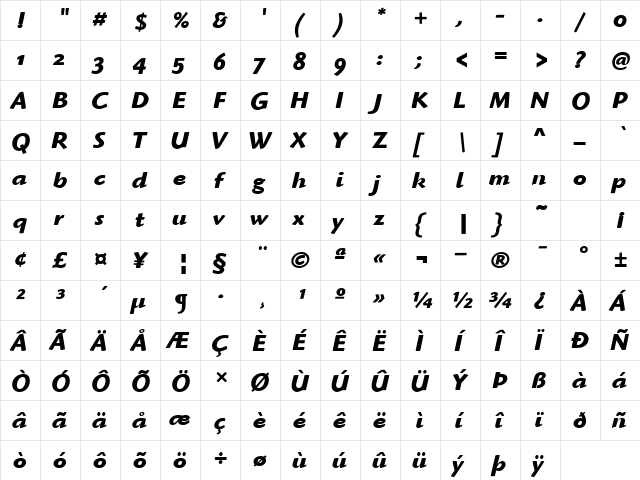
HighlanderITCOS BoldItalic Font Preview
HighlanderITCOS BoldItalic
HighlanderITCOS BoldItalic Font Details
Design Context for HighlanderITCOS Typeface
HighlanderITCOS is a composed and adaptable typeface that performs quietly and consistently across a wide range of design contexts. The slanted form adds forward momentum and visual energy. The heavy weight commands attention and anchors typographic hierarchies.
Pro Tip: Use HighlanderITCOS for emphasis, pull quotes, and subheadings where its slanted energy can add rhythm to the layout.